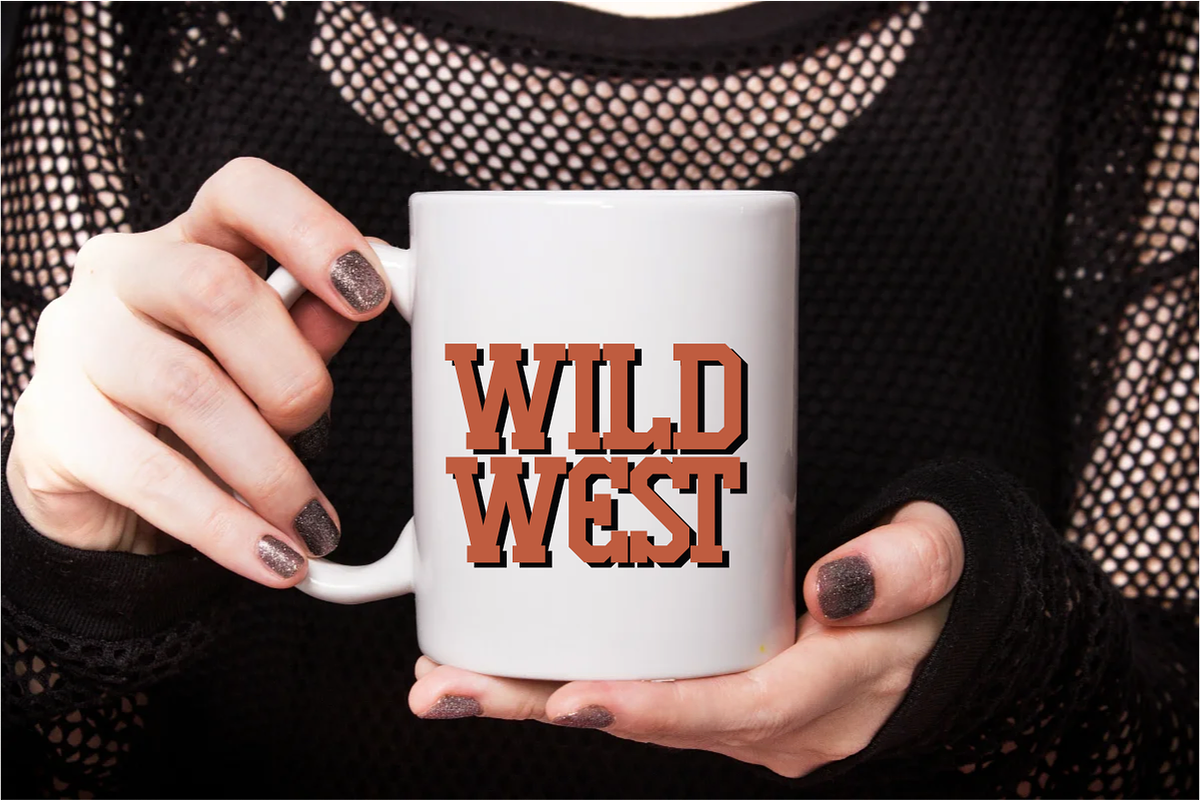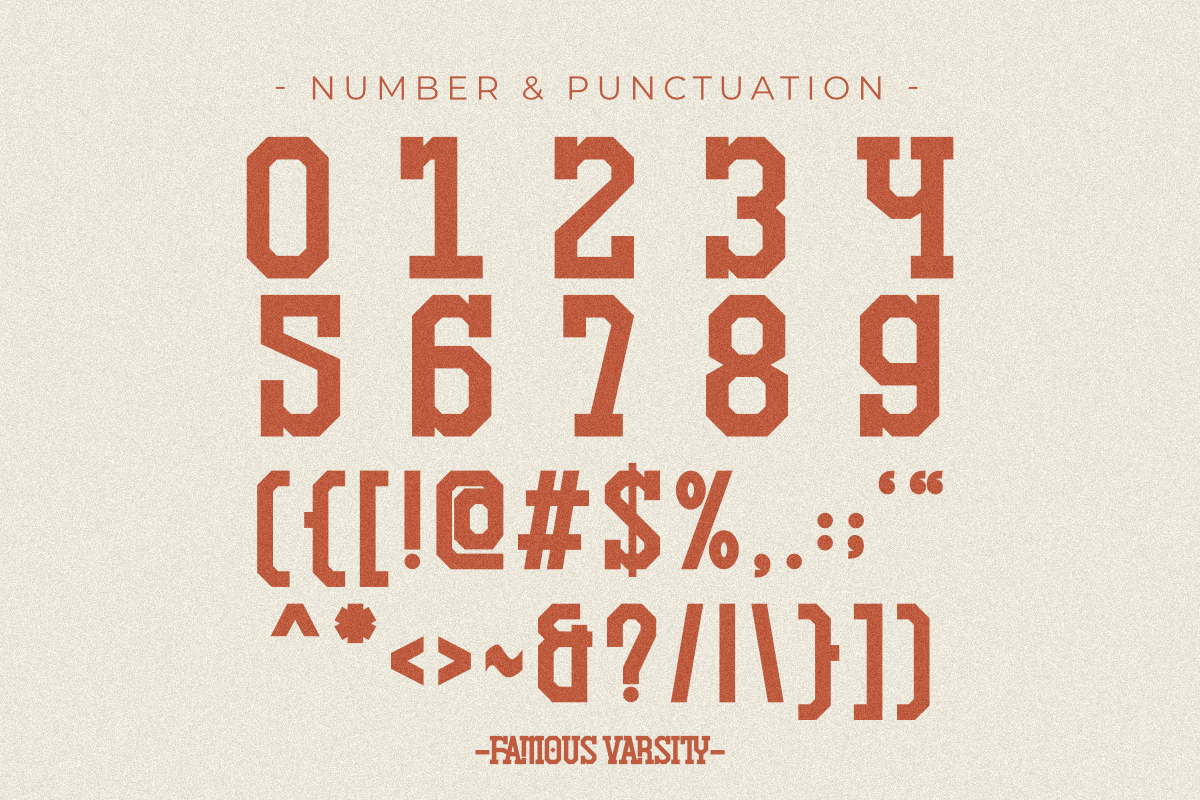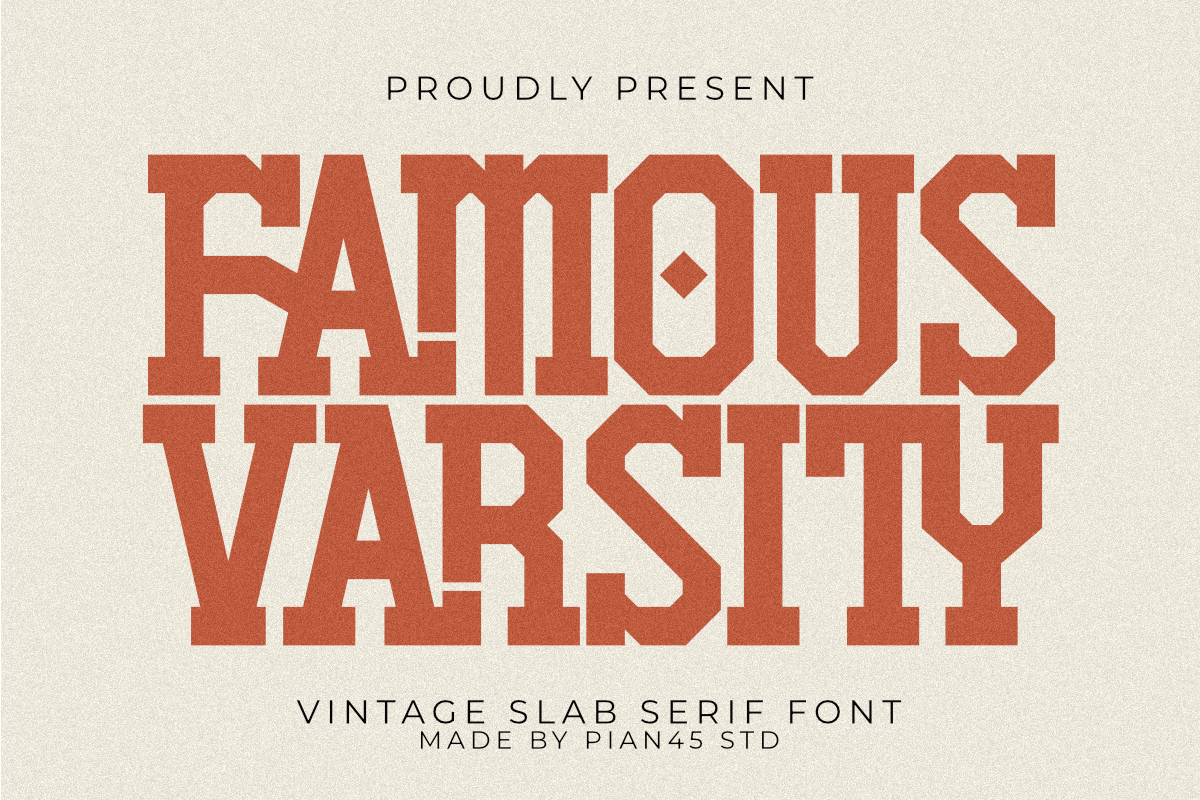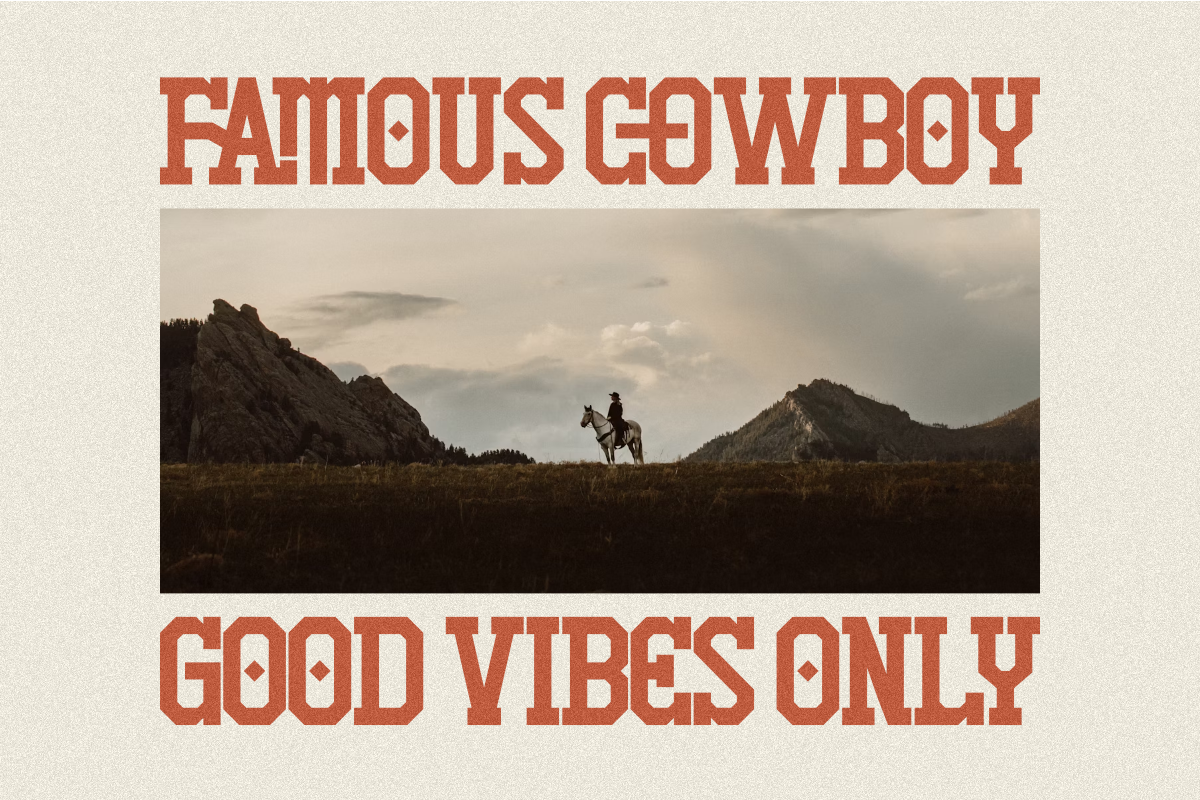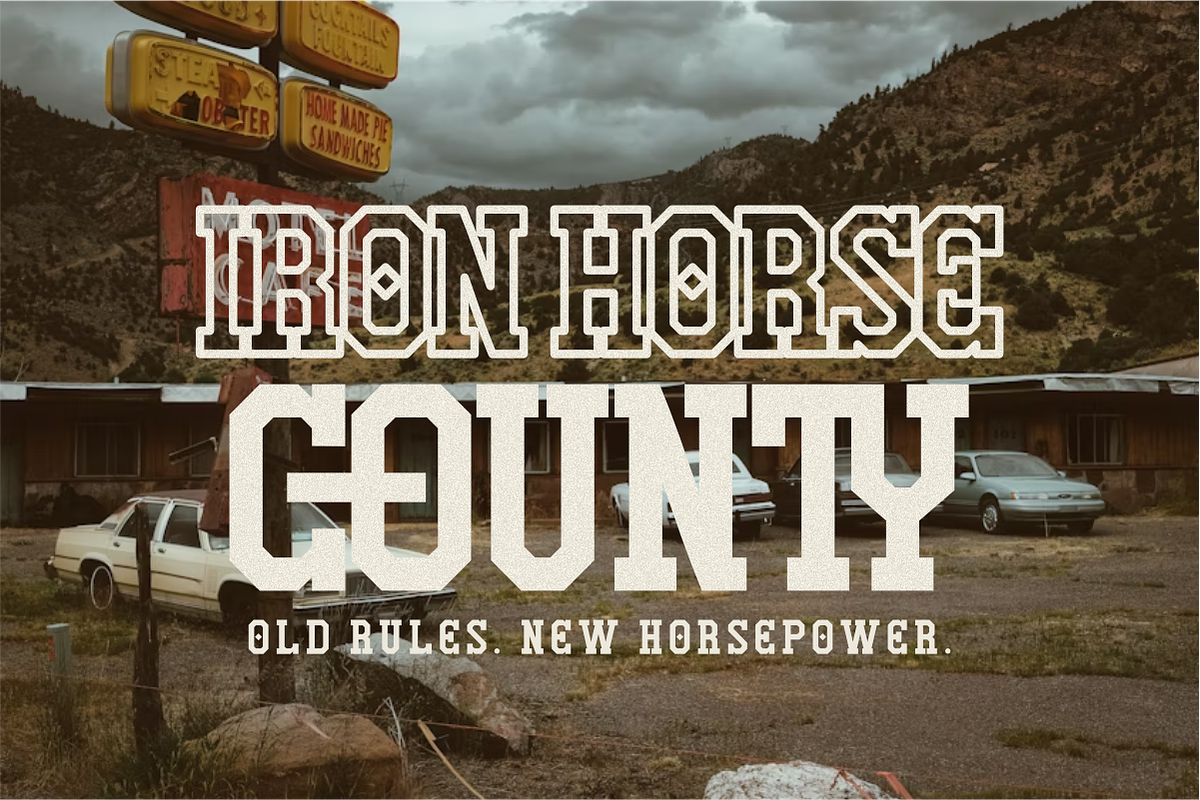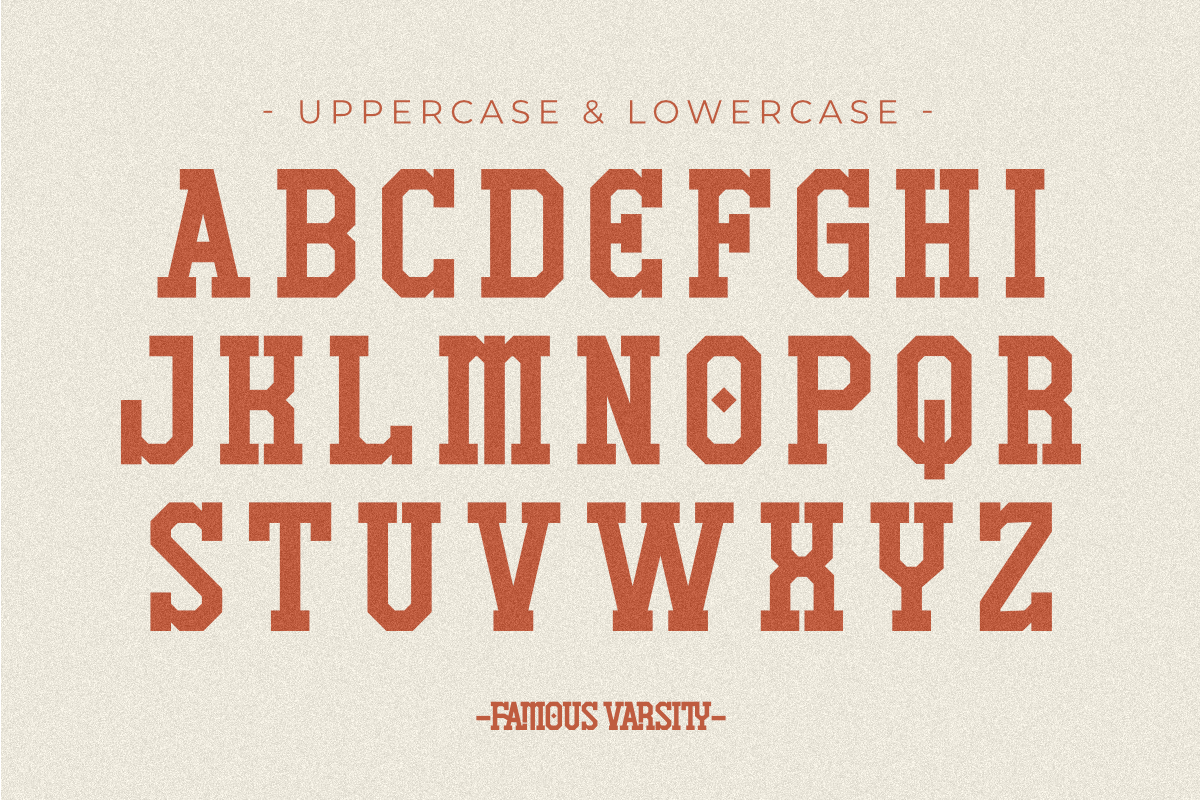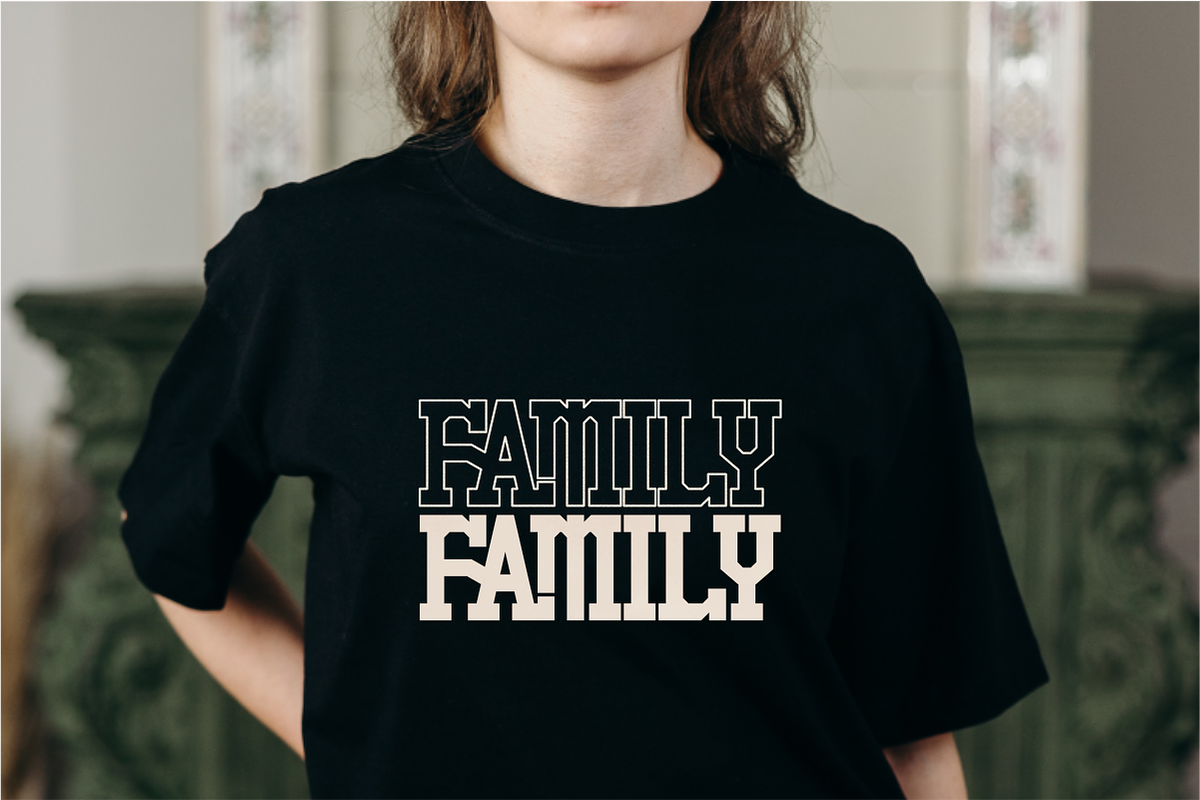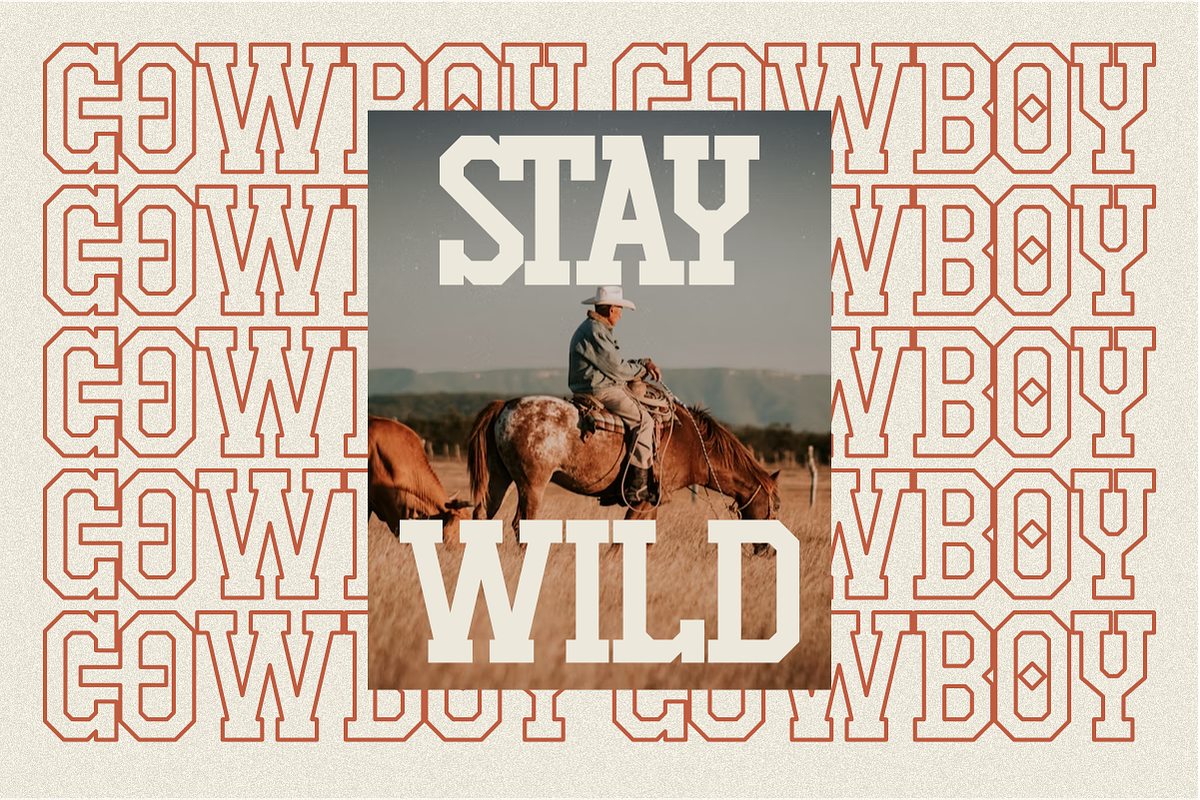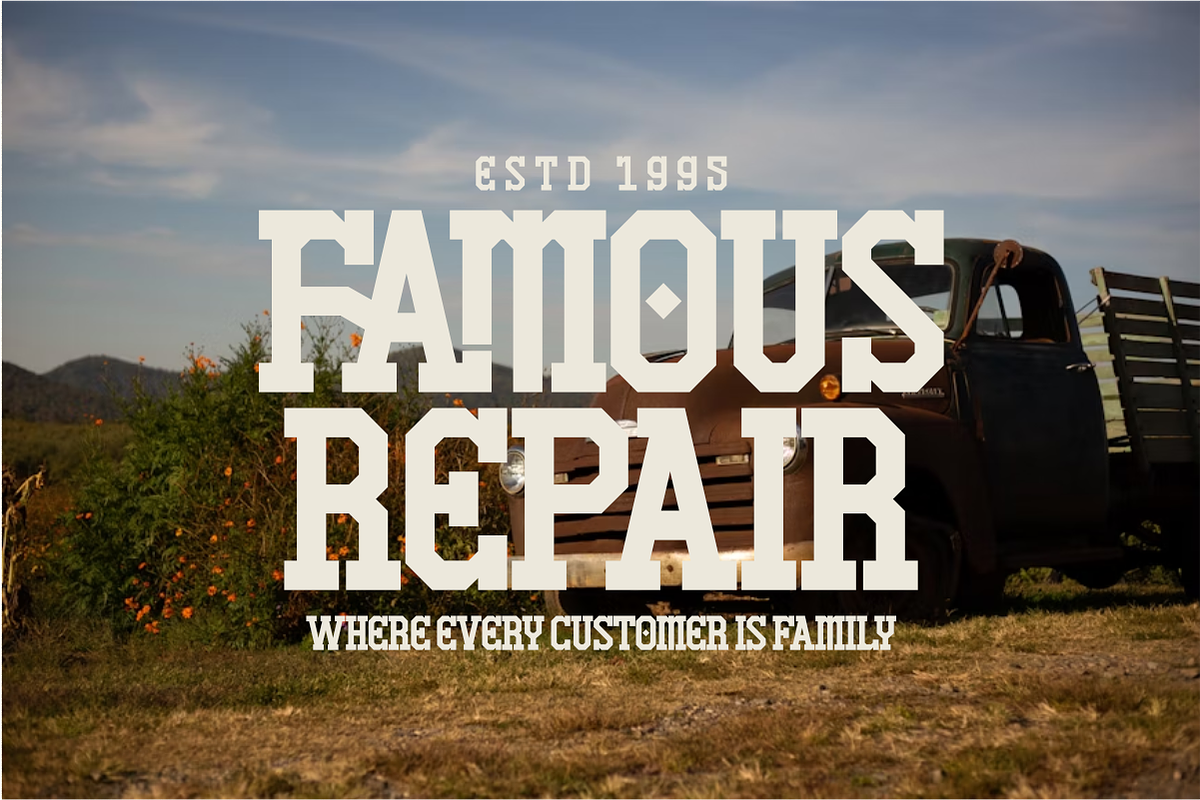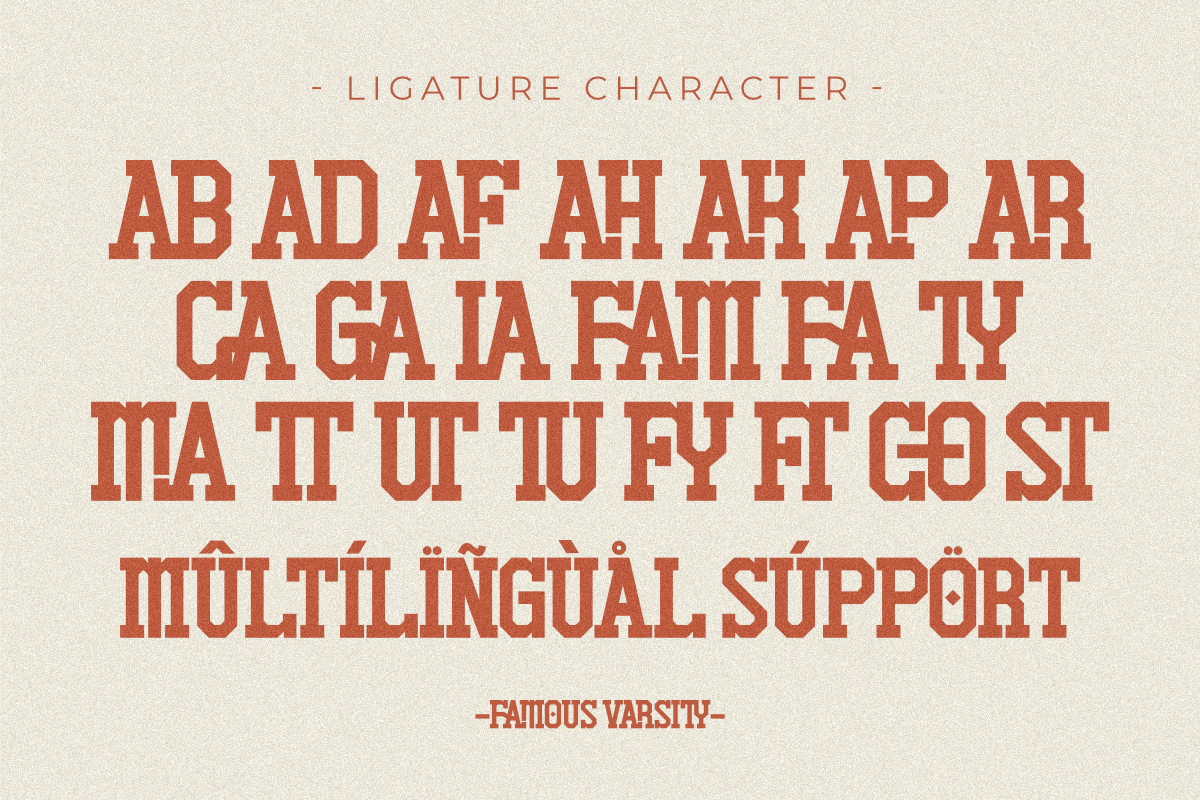
Famous Varsity - Vintage Slab Serif
Famous Varsity is a bold condensed vintage slab serif font designed for high-impact retro projects. This collegiate typeface powerfully combines a classic varsity aesthetic with a rugged cowboy western vibe, making it perfect for nostalgic branding. Featuring custom ligatures for an authentic look, it's the ideal display font for apparel design, team logos, vintage posters, and strong headlines.